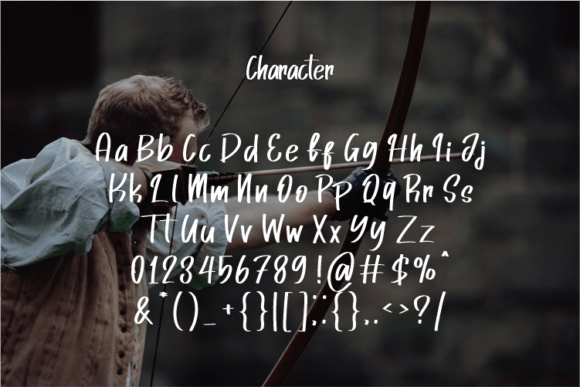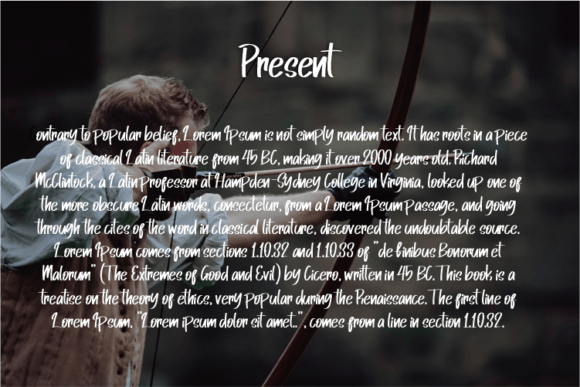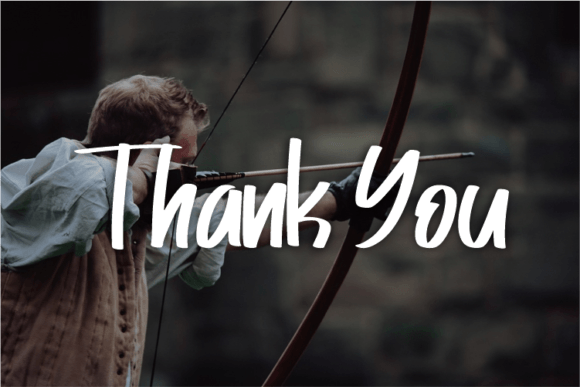
The First Games Font: A Simple yet Luxurious Script Typeface
I’ll never forget the moment I stumbled upon the perfect font for a client’s luxury fashion brand. I had been searching for hours, trying out different typefaces, but nothing seemed to fit the bill. That was until I discovered the First Games font. With its simple style and modern look, it was love at first sight! ✨ In this article, I’ll share my experience with this elegant script typeface and provide a comprehensive guide on how to use it in your designs.
So, what do I love about the First Games font? Here are a few things that make it stand out:
- ✅ Elegant and luxurious feel, perfect for high-end brands
- ✨ Simple and modern design that’s easy on the eyes
- ✅ Highly versatile, suitable for a wide range of design projects
- ✅ Great for titles, headings, and quotes
Of course, no font is perfect, and there are a few quirks to be aware of:
- ⚠️ Limited character set, may not be suitable for body text
- 🤔 Some users may find the font too simplistic or lacking in personality
The Backstory Behind First Games Font
The First Games font was designed with the goal of creating a simple yet luxurious script typeface. The designer wanted to create a font that was easy to read and elegant in its simplicity. With its modern look and feel, the First Games font is perfect for a wide range of design projects, from luxury brands to creative designs.
| Font Name | First Games Font |
| Author | Eric Kusuma |
| What is the First Games font? | The First Games font is a script typeface with a simple style and modern look, perfect for elegant and luxurious designs. |
| Is the First Games font suitable for body text? | No, the First Games font is best suited for titles, headings, and quotes. Its limited character set and elegant feel make it less suitable for body text. |
| Is the First Games font available in different styles? | Currently, the First Games font is available in a single style. However, the designer may release additional styles or variations in the future. |